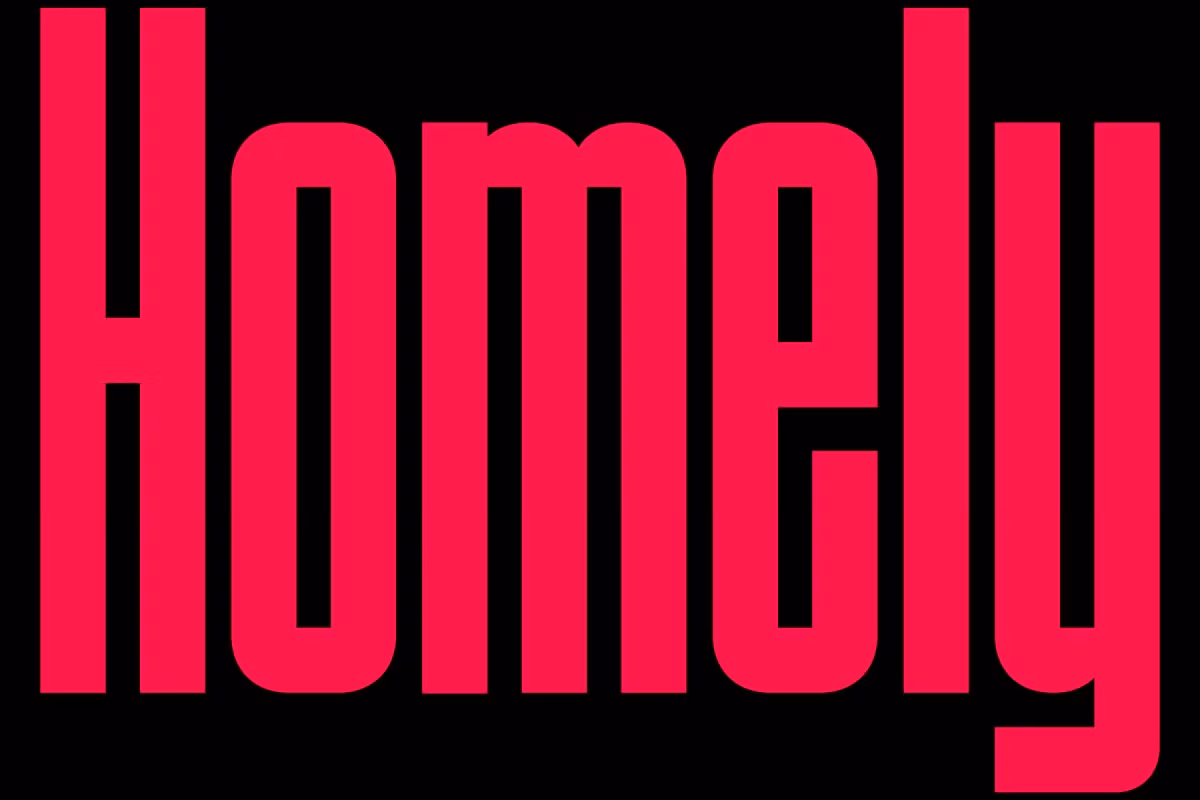
Homely | Condensed Font Free Download
Homely | Condensed Font Free Download is a sleek and modern typeface designed with both elegance and functionality in mind. With its condensed structure and clean lines, Homely is perfect for branding, editorial design, logos, posters, and any project that requires a sharp, professional look while saving space.
The condensed style ensures that your typography remains legible even in tight spaces, while its modern design brings a touch of sophistication. Whether you're working on a minimalist brand identity, designing a dynamic headline, or creating promotional materials, Homely adds a clean and stylish vibe to your design.
Designers love Homely for its versatility and efficiency across both print and digital platforms. Ready to elevate your typography with sleek precision? Download Homely | Condensed Font Free Download and give your designs a polished, modern edge.